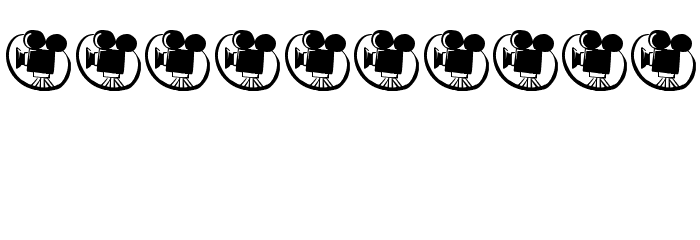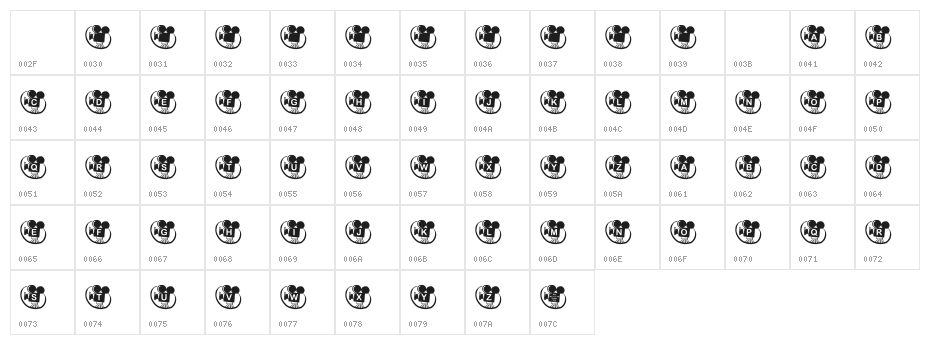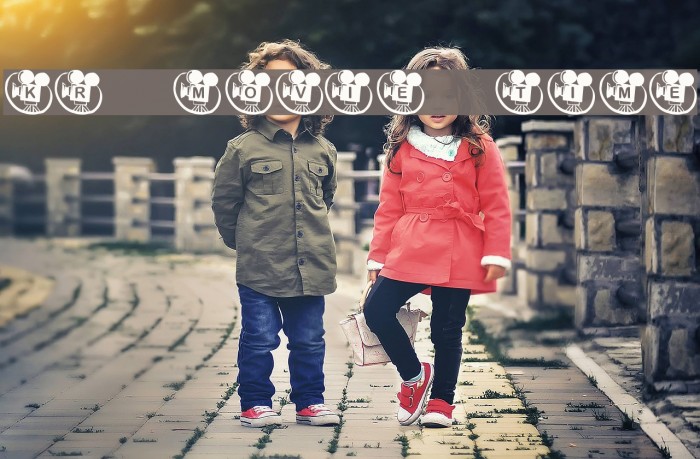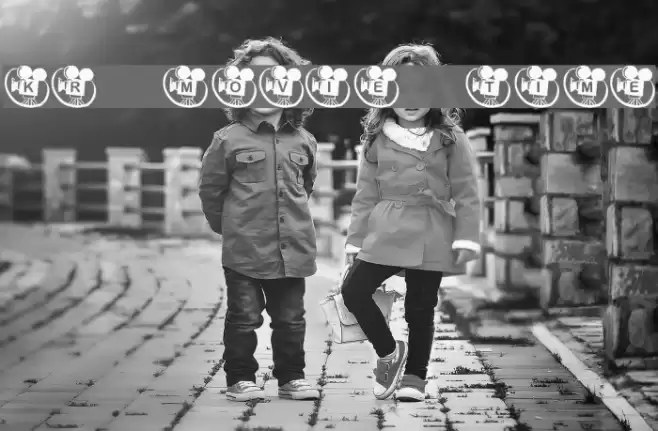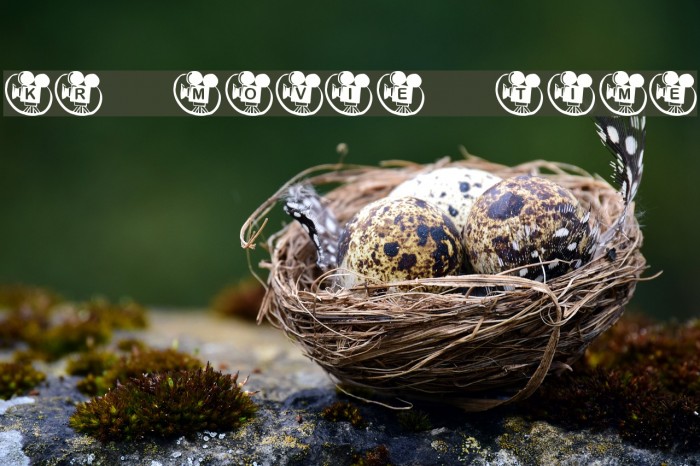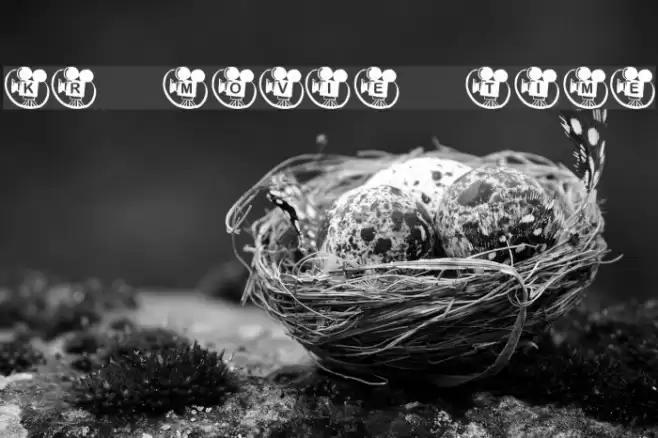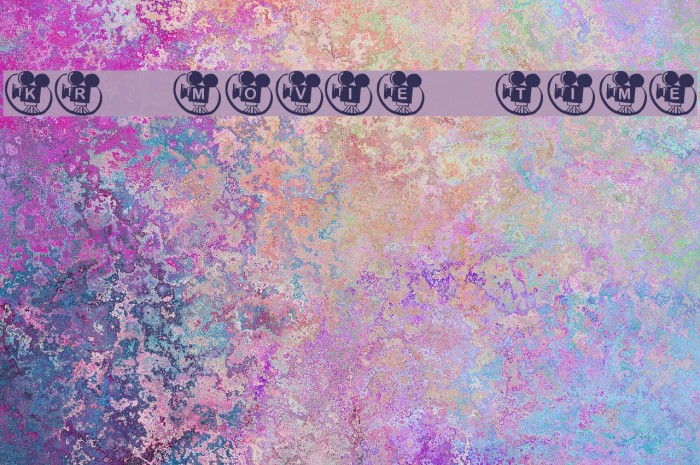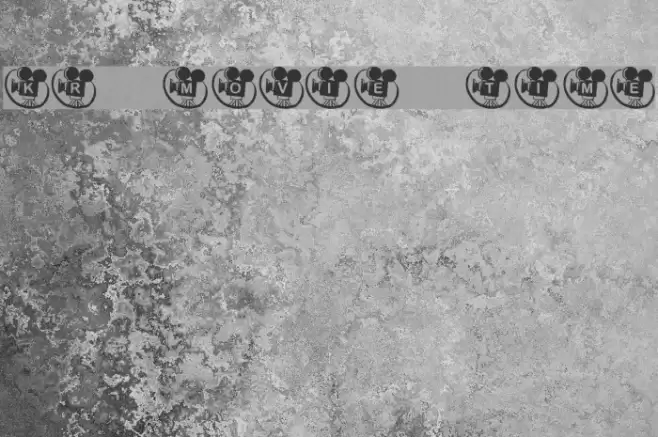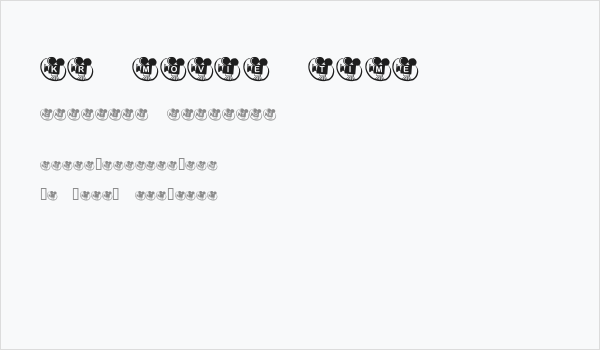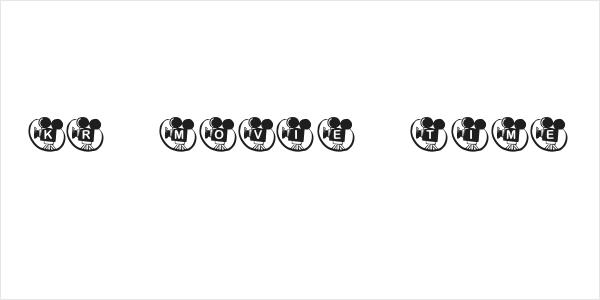
KR Movie Time Font
KR Movie Time Description
This font features a playful and thematic design, incorporating a film camera motif into each character. The letters are encased within circular badges, each adorned with a stylized camera icon, creating a unique and cinematic feel. The characters are bold and rounded, ensuring legibility while maintaining a decorative flair. This font is ideal for projects that aim to evoke a sense of fun and creativity, particularly in contexts related to film, entertainment, or children's media. The consistent use of the camera motif across all characters provides a cohesive and thematic appearance, making it suitable for branding or promotional materials in the film industry.